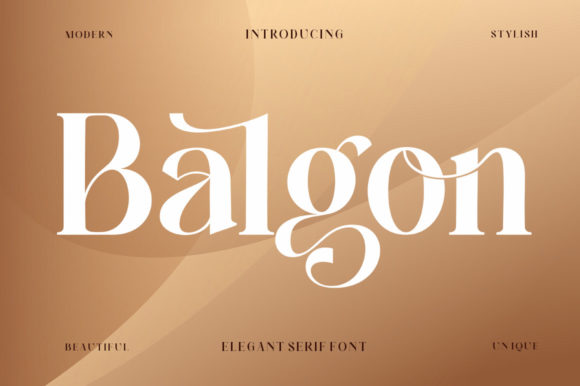
Embark on a Typographic Journey with Balgon: The Epitome of Classic Elegance
Amidst the myriad fonts vying for your attention, Balgon stands as a beacon of timeless sophistication. This exquisite serif font, meticulously crafted by the renowned type foundry, Typehill, exudes an air of luxury and refinement that will elevate your designs to new heights.
Transport yourself to a bygone era of elegance and charm with Balgon's captivating retro style. Its bold serifs and sweeping curves evoke a sense of nostalgia, while its contemporary sensibilities ensure it remains relevant and captivating in the modern digital landscape. Whether you're designing a classic menu, a sophisticated logo, or an eye-catching social media post, Balgon promises to make a lasting impression.
Unleash your creativity and explore the boundless possibilities that Balgon presents. With its extensive character set, including a wealth of glyphs and swashes, you'll have the freedom to express your unique style and vision. Each letterform in Balgon is a testament to the font's meticulous design, ensuring impeccable clarity and legibility, even at the smallest sizes.
Balgon's versatility extends beyond its aesthetic appeal. Perfectly suited for both print and digital applications, this font seamlessly adapts to a wide range of projects. Whether you're creating a stunning poster, a captivating website, or an unforgettable branding experience, Balgon will effortlessly elevate your designs and leave a lasting impact on your audience.
Embrace the timeless allure of Balgon and embark on a typographic journey that will redefine your creative horizons. Its classic elegance, luxurious feel, and boundless versatility make it an indispensable tool for any designer seeking to create truly exceptional work. Discover the beauty of Balgon today and unlock the potential for unforgettable designs.